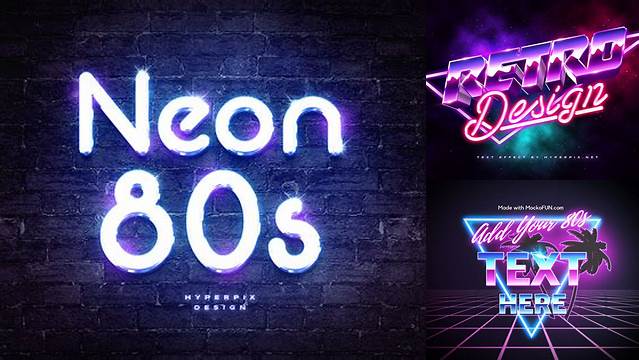
Neon 80s Font: Free Downloads For Retro Designs
Hey guys! Ready to dive into the vibrant world of the 80s? One of the coolest ways to capture that retro vibe is with a killer neon 80s font. Think Miami Vice, arcade games, and synth-pop – that's the energy we're channeling! In this article, we're going to explore everything you need to know about finding and using these awesome fonts for free. So, buckle up and let's get started!
1. Understanding the Appeal of Neon 80s Fonts
Why are neon 80s fonts so popular? Well, they're bold, eye-catching, and instantly transport you back to a decade of big hair and even bigger personalities. The neon glow effect gives them a unique, almost electric feel, perfect for grabbing attention. Whether you're designing a poster, creating a logo, or just adding some flair to your social media posts, these fonts can really make your project pop. They evoke a sense of nostalgia and fun, making them a go-to choice for designers looking to add a retro touch.
These fonts aren't just about aesthetics; they're about storytelling. When you use a neon 80s font, you're tapping into a whole cultural moment. Think about the movies, the music videos, and the iconic branding of the era. These fonts were everywhere, and they played a huge role in shaping the visual identity of the 80s. So, by incorporating them into your designs, you're not just choosing a typeface; you're choosing to communicate a specific mood and message. It’s about capturing that energetic, vibrant spirit and bringing it to a modern audience.
Moreover, the versatility of neon 80s fonts is a major draw. They work well in a variety of contexts, from digital graphics to print materials. Imagine a neon-lit logo on a business card, or a vibrant headline on a website. These fonts can add a touch of retro cool to almost any project. Plus, with the rise of retro-inspired design trends, they're more relevant than ever. So, whether you're a professional designer or just someone who loves the 80s aesthetic, these fonts are a valuable tool to have in your arsenal.
2. Key Characteristics of Neon 80s Fonts
So, what exactly makes a font a “neon 80s font”? There are a few key characteristics to look out for. First and foremost, it's all about the glow. These fonts often have a simulated neon effect, with bright colors and a soft, blurred outline that mimics the look of neon signs. This effect is crucial for capturing that retro vibe. Think about the classic arcade games or the neon signs that lined city streets in the 80s – that’s the visual inspiration.
Another defining feature is the bold, geometric shapes. Many neon 80s fonts feature strong lines, sharp angles, and a futuristic feel. This reflects the era's fascination with technology and innovation. Think of the typography used in sci-fi movies and video games of the time. These fonts often have a very distinct, almost mechanical look. This boldness helps them stand out and make a statement, which is exactly what you want when you're trying to capture the energy of the 80s.
Finally, color plays a huge role. Neon 80s fonts are all about vibrant, saturated hues. Think pinks, blues, greens, and yellows – the brighter, the better! These colors not only add to the visual impact but also help create that signature neon glow effect. When you combine these colors with the bold shapes and simulated neon effect, you get a font that truly screams 80s. It's a visual shorthand for a decade known for its bold, energetic style, and it’s a fantastic way to add some retro flair to your projects.
3. Where to Find Free Neon 80s Fonts
Okay, so you're sold on the neon 80s font vibe – but where can you actually find these gems for free? Luckily, the internet is brimming with resources. There are tons of websites offering free fonts, but it's important to be a bit discerning. Not all free fonts are created equal, and you want to make sure you're getting something that's high-quality and suitable for your project. Let's dive into some of the best places to hunt down those retro-cool typefaces.
One of the best places to start is with reputable font websites that offer a mix of free and premium options. Sites like DaFont, Fontspace, and Google Fonts often have dedicated sections for retro or 80s-inspired fonts. These sites allow you to easily browse and filter fonts based on style, making it easier to find exactly what you're looking for. Plus, they often have user ratings and reviews, so you can get a sense of the font's quality before you download it. This can be a huge help in avoiding fonts that are poorly designed or incomplete.
Another great resource is design blogs and websites that regularly curate free font collections. These articles often feature a hand-picked selection of fonts, including some awesome neon 80s options. This can save you a lot of time and effort, as someone has already done the work of sifting through the thousands of fonts available online. Keep an eye out for articles with titles like “Best Free Retro Fonts” or “80s Inspired Fonts for Your Next Project.” These are goldmines for discovering hidden gems and unique typefaces that you might not find through a general font search.